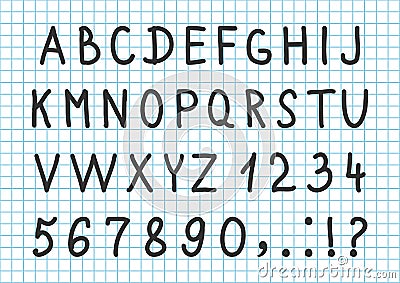
Black Font Hand Drawn Alphabet, Numbers And Characters On Checkered Notebook Background. Vector Stock Illustration
Black font hand drawn alphabet, numbers and characters on checkered notebook background. Vector illustration